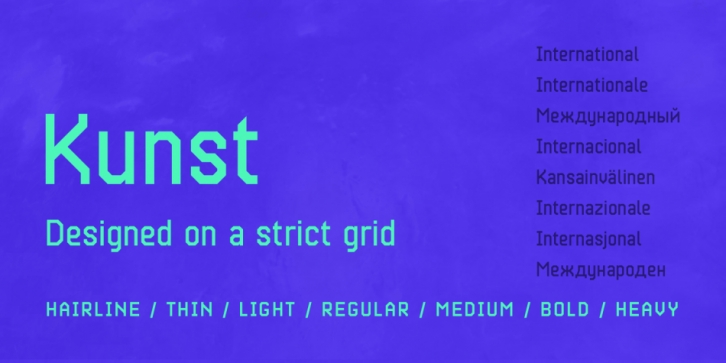
Publisher: Matt Grey Design
Designed by Matt Grey, Kunst is a display sans font family. This typeface has nineteen styles and was published by Matt Grey Design.
Inspired by European brutalist design aesthetic, Kunst strives for form dominated by pure geometric precision, utilising 45° angles based on a strict grid.
Also available in Rounded and Imprint styles.
Covers Western and Cyrillic character sets with a full range of Smallcaps. Includes Tabular Figures, Standard and Discretionary Ligatures, and Contextual Alternates such as arrows, Smart Quotes, and German Capital Eszett/scharfes (Sharp s).